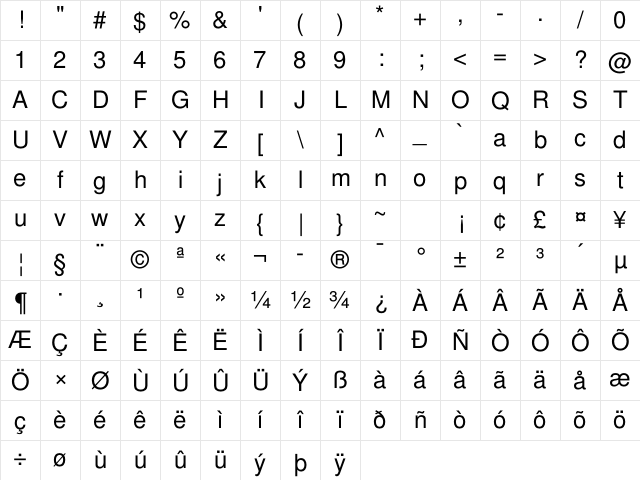
FreeSans Medium Free Font
FreeSans Medium
Foundry: GNU
Design Context for FreeSans
FreeSans is a composed and adaptable typeface that performs quietly and consistently across a wide range of design contexts.
Who designed the FreeSans Medium font?